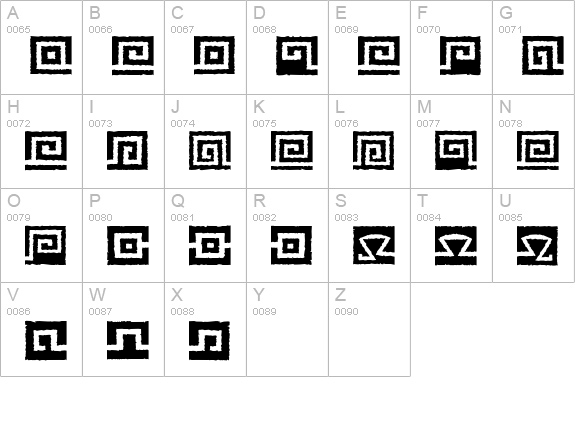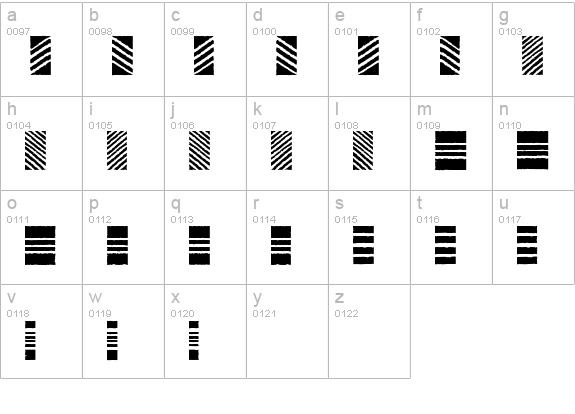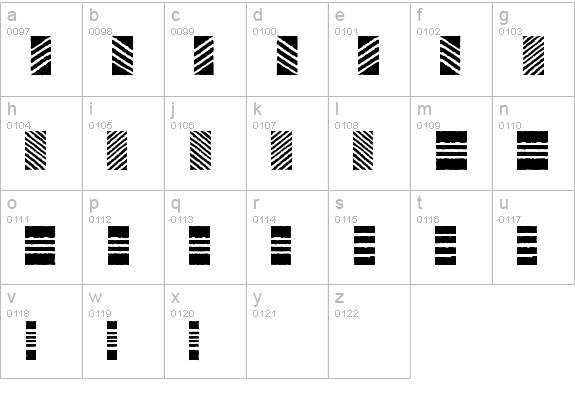
Stoned-RuleTwo font is a stylish and modern typeface that exudes a sense of sophistication and elegance. With its sleek lines and sharp edges, this font is perfect for creating eye-catching designs that demand attention. Whether you're working on a branding project, a website design, or a print publication, Stoned-RuleTwo font will add a touch of class to your work. The best part? Stoned-RuleTwo font is completely free to download at FontsMarket.com. Yes, you read that right - you can get your hands on this stunning font at no cost at all. So why wait? Head over to FontsMarket.com now and start using Stoned-RuleTwo font to take your designs to the next level.